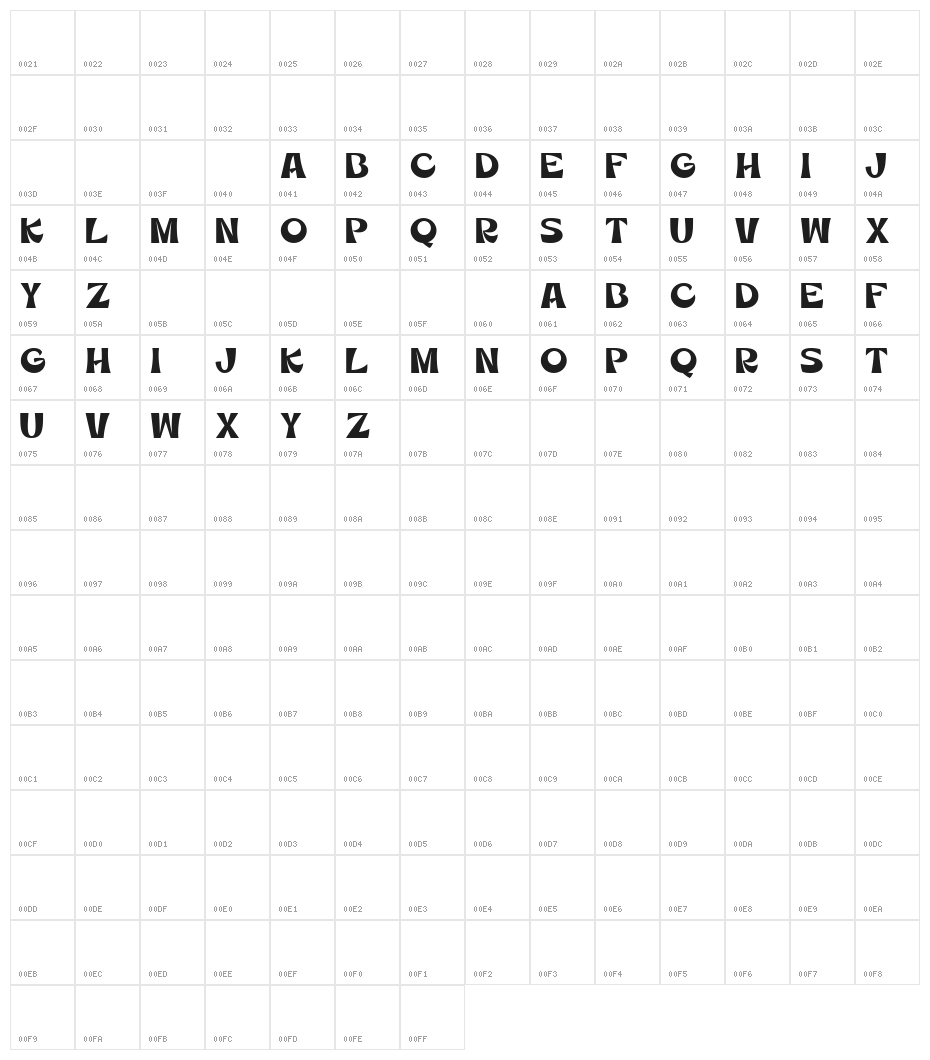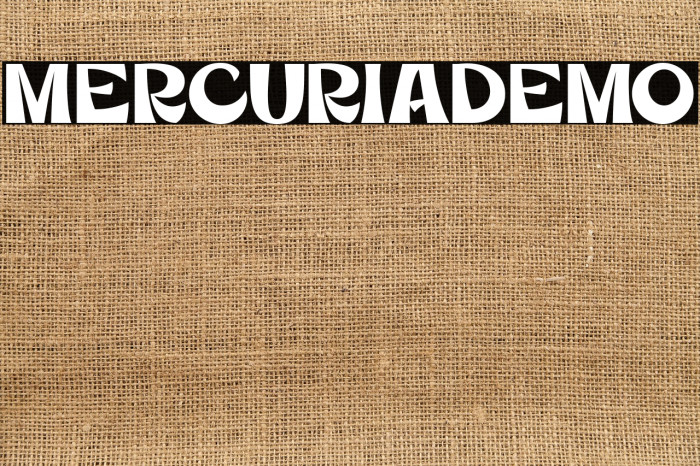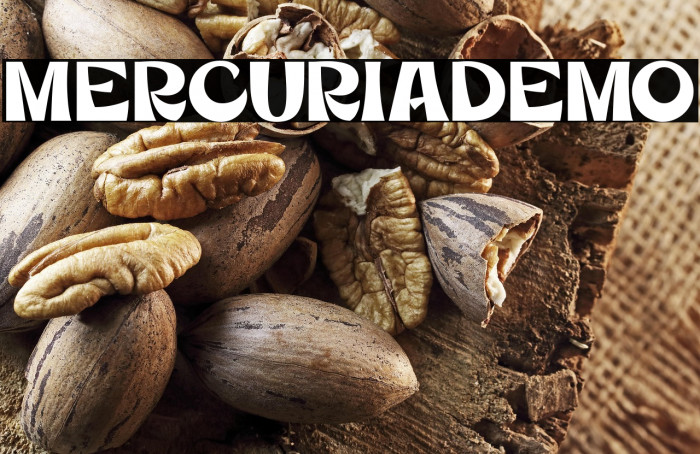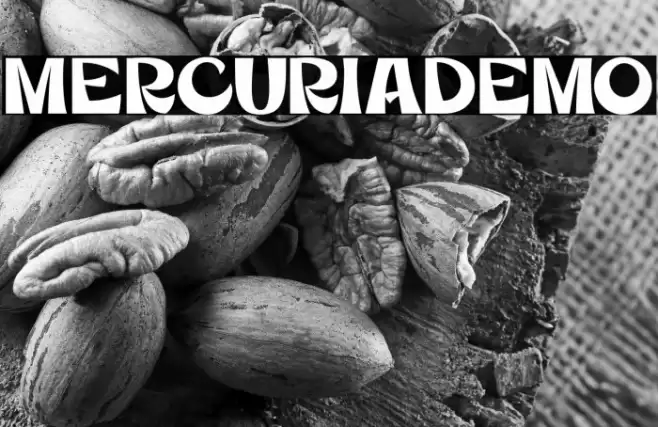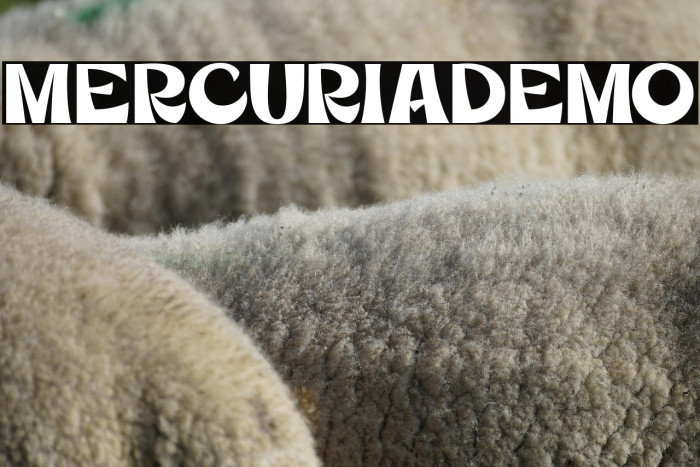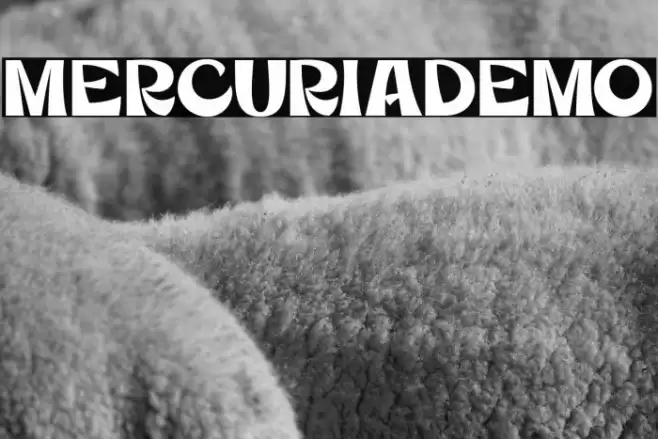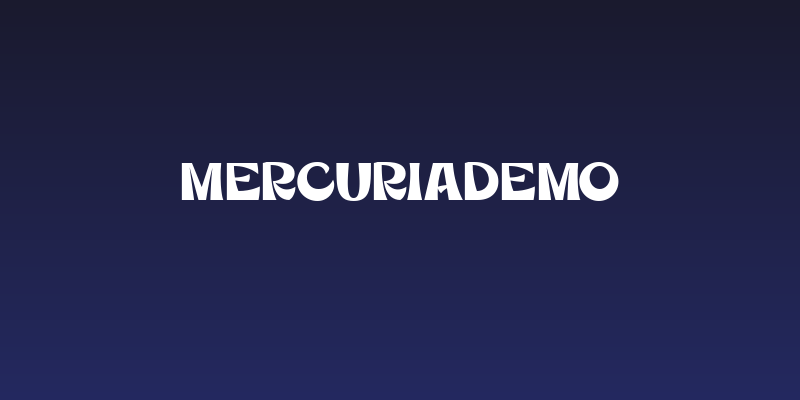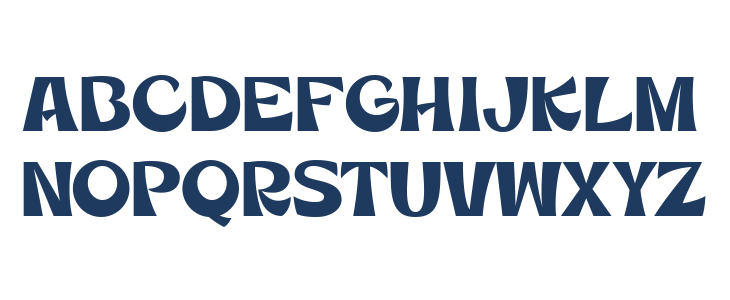
MercuriaDemo Font
MercuriaDemo Description
This font features a bold and dynamic style with a strong presence. The characters are designed with a unique flair, incorporating sharp angles and curves that give it a distinctive look. The uppercase letters are particularly striking, with a sense of movement and energy. The overall design is both modern and playful, making it suitable for a variety of creative projects. The font's boldness ensures it stands out, while the artistic elements add a touch of elegance and sophistication.
Proposed ProjectsIdeal for branding, posters, headlines, and any project requiring a bold, artistic touch.